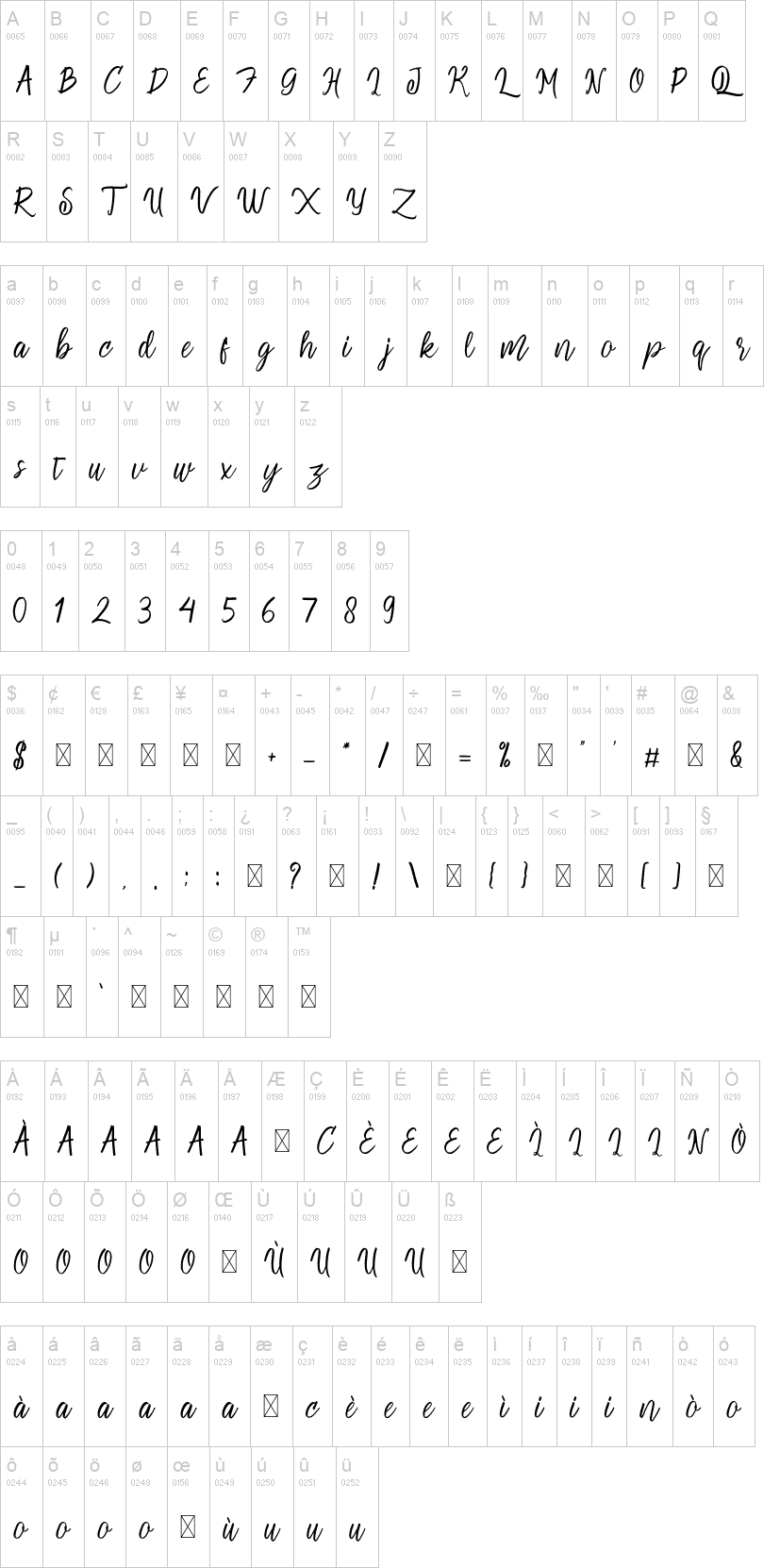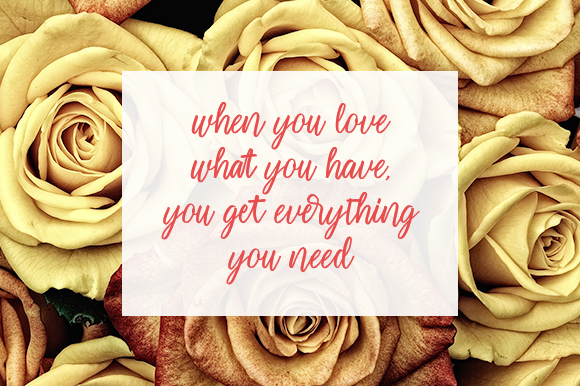
Note of the authorGeulis is a flowing handwritten font, described by an elegant touch, perfect for your favorite projects. Fall in love with its incredibly distinct and timeless style and use it to create spectacular designs!